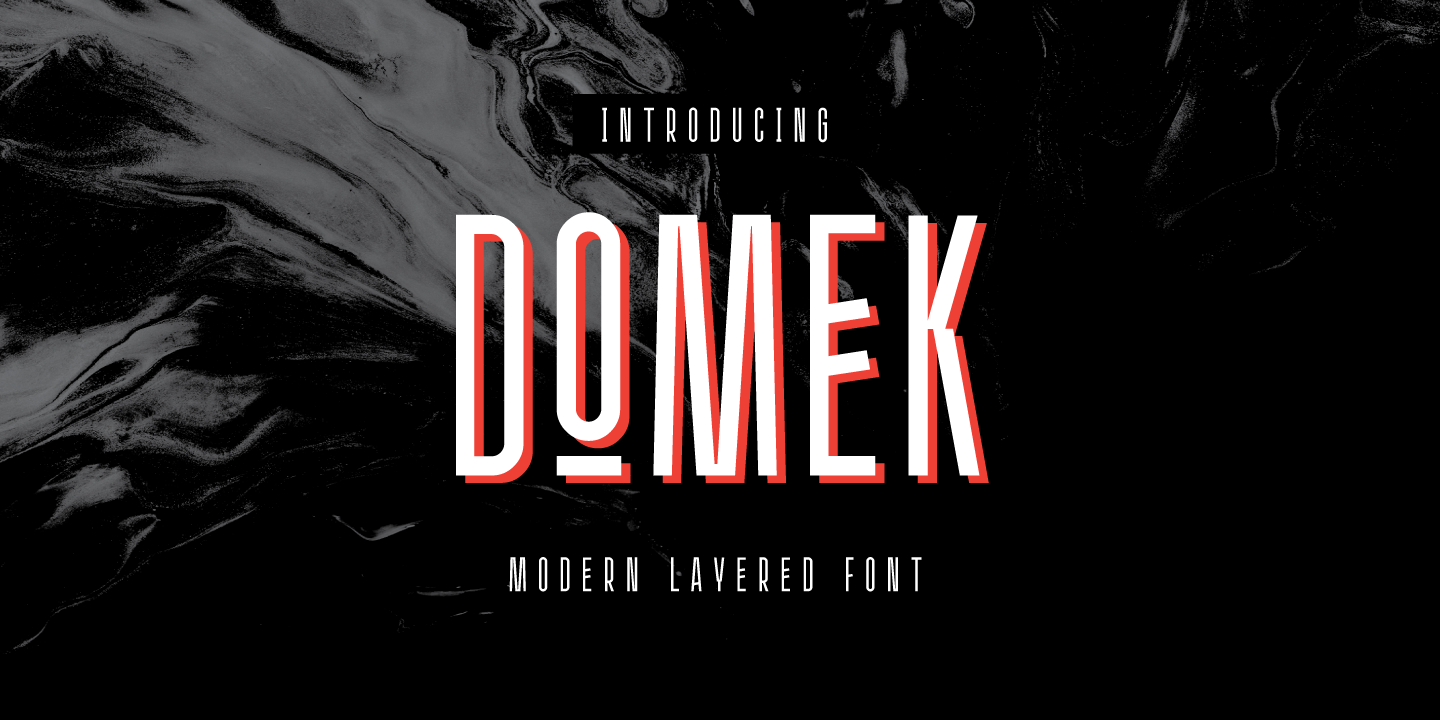
Domek Font is perfect for architectural branding projects, real estate marketing materials, construction company logos, interior design portfolios, home improvement advertisements, property development signage, cozy cafe branding, residential construction projects, housing magazine layouts, and home decor product packaging that requires a warm and welcoming residential aesthetic.
What makes Domek Font so exciting is its charming residential character that perfectly captures the essence of home and architectural comfort. This remarkable typeface features clean, structured letterforms with subtle geometric influences that evoke the stability and warmth of well-designed homes. The font's carefully crafted details include balanced proportions and friendly curves that give your designs an approachable yet professional appearance, making it an ideal choice for designers who want to convey trust, comfort, and architectural sophistication in their work.
Domek Font comes in multiple font families including Regular, Bold, Light, Italic, Bold Italic, Condensed, and Extended variations. Each family member maintains the distinctive architectural aesthetic while offering different weights and styles to suit various residential design needs. The complete font family provides designers with extensive flexibility for creating cohesive home-focused brand identities and diverse typographic hierarchies that maintain their welcoming appeal.
For designers seeking authentic architectural typography, Domek Font Free Download offers an exceptional solution that brings the timeless appeal of residential design and home aesthetics to modern digital projects. This versatile typeface works beautifully in both large display sizes and smaller text applications, making it suitable for everything from eye-catching property headlines to detailed architectural specifications. The font's unique character makes it particularly effective for brands that want to convey reliability, comfort, and residential excellence.
Whether you're working on real estate brochures, architectural presentations, home improvement catalogs, or residential marketing campaigns, Domek Font delivers the perfect balance of readability and homey character. Its distinctive home-inspired design elements help create memorable brand experiences that resonate with audiences seeking comfort and architectural quality.
The font's versatility extends beyond traditional print applications, working equally well in digital environments where residential aesthetics are desired. From website headers to social media graphics, Domek Font maintains its welcoming appeal across all media formats, ensuring consistent brand presentation throughout your home-focused design projects.